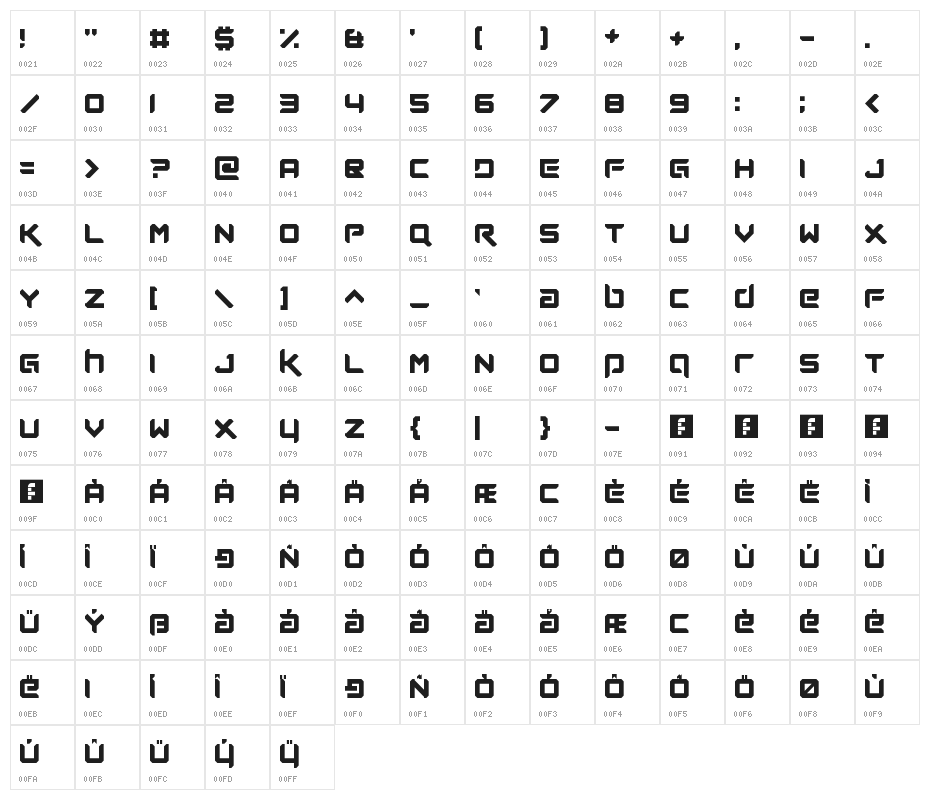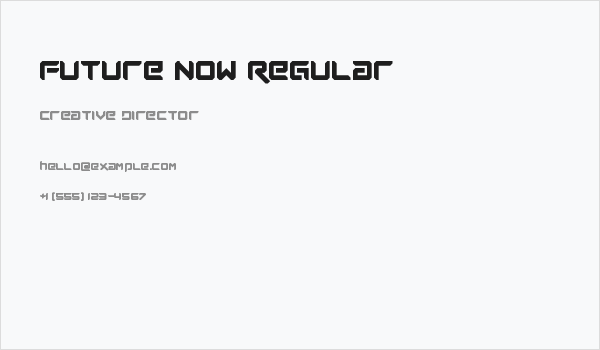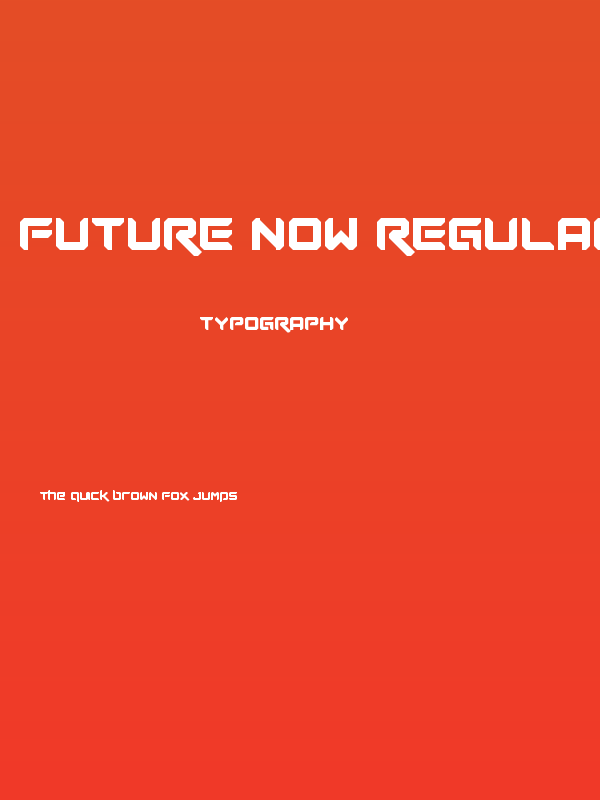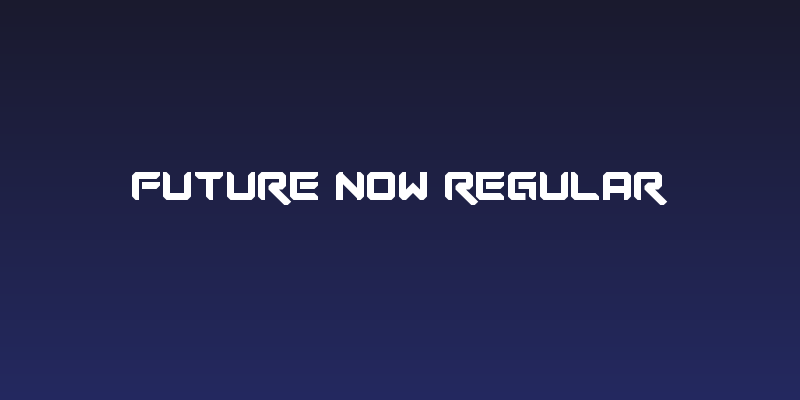
Future Now Regular Font
Future Now Regular Description
This font features a futuristic and geometric design, characterized by bold, angular lines and a strong presence. The uppercase and lowercase letters maintain a consistent style, with sharp edges and a blocky appearance that suggests a modern, tech-inspired aesthetic. The numbers and special characters follow the same design principles, ensuring uniformity across all glyphs. Its distinct style makes it stand out, ideal for projects that require a contemporary and edgy look.
| Proposed Projects | Ideal for technology branding, sci-fi posters, video game titles, and modern advertising. |